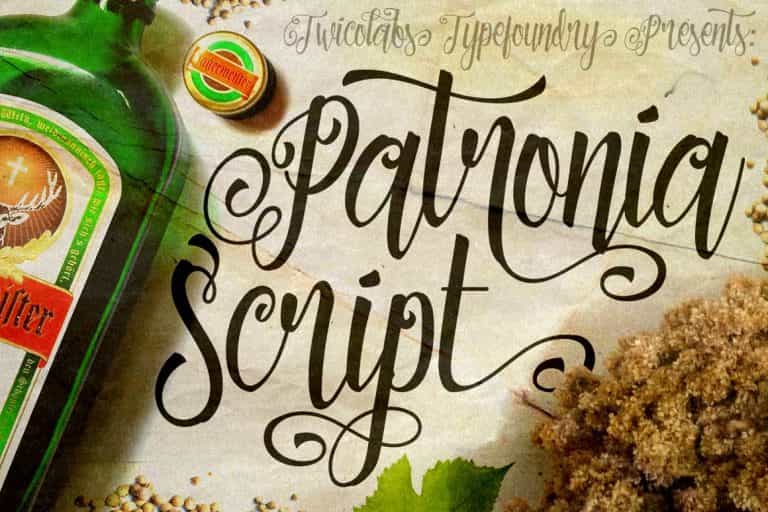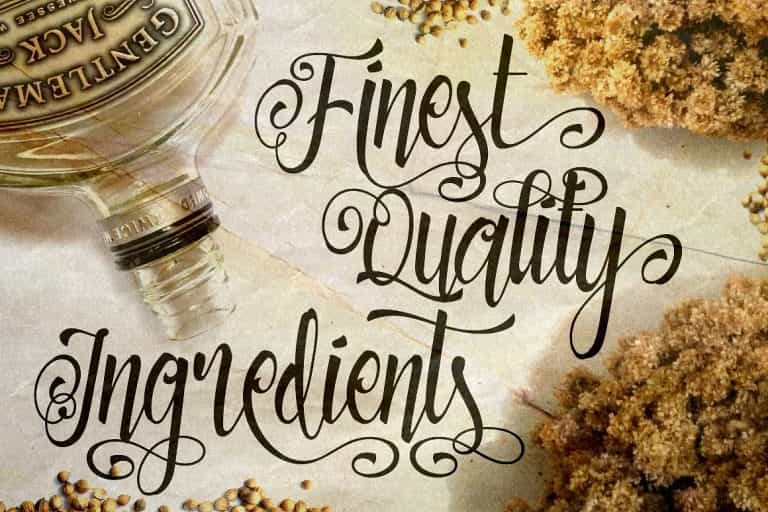
Patronia – is a handwritten script font that was created and shared by Twicolabs Fontdation. Patronia Script is a brush-lettering inspired script typeface that unites thick and thin lines, loose and tight kerning, as well as unique baseline combinations for the authentic hand-writing effects.